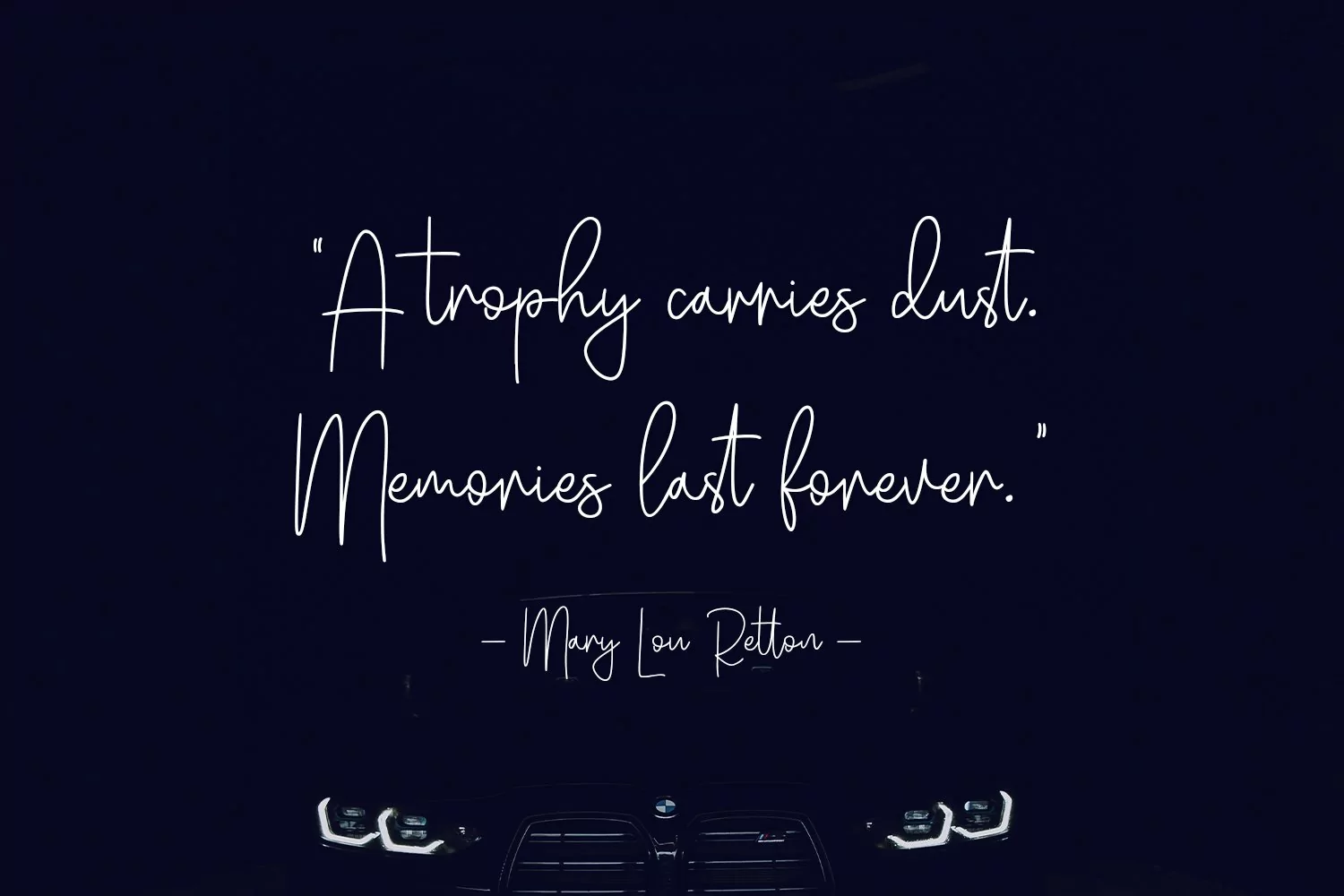
Jefferys York is a signature script font With clean monoline stroke, condensed, upright and fun character. It has Opentype features of ligatures and lowercase alternates, To give you an extra creative work. Jeffreys York script font support multilingual more than 100+ language. This font is good for logo design, Social media, Movie Titles, Books Titles, a short text even a long text letter and good for your secondary text font with sans or serif. Make a stunning work with Jeffreys York signature font.